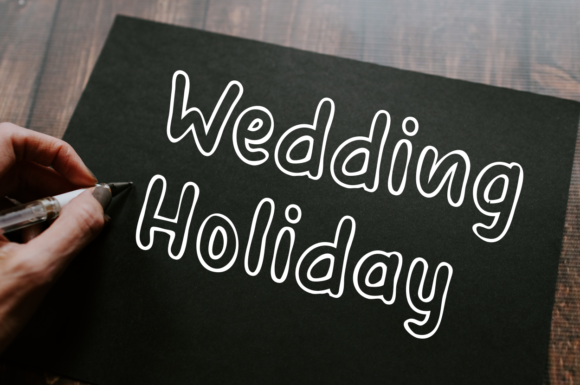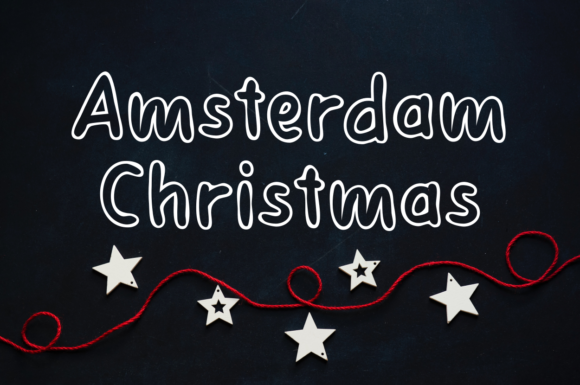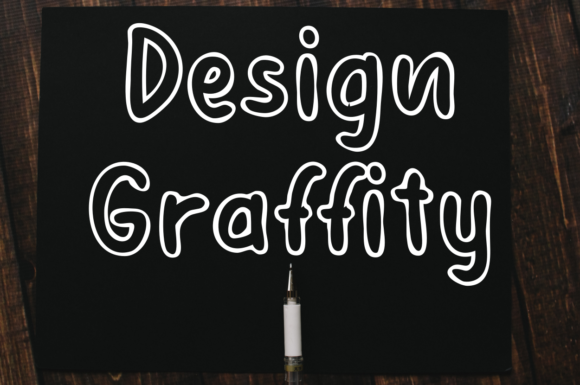
Introduction to Juicy Lemon Font
Have you ever been stuck on a creative project, searching for the perfect font to bring your idea to life? I know I have. Remember that one project where you spent hours browsing through font libraries, trying to find the perfect match? For designers, this is a common struggle. But what if I told you that there’s a font that can make your life easier? Enter the Juicy Lemon Font, a fresh and modern outlined display font that’s perfect for any creative project.
This beautiful font is not just a pretty face; it’s also a valuable design resource for anyone looking to elevate their branding materials, business cards, quotes, posters, and more. With its high-quality design and transparent background, the Juicy Lemon Font is perfect for designers who want to add a touch of elegance to their work.
Key Features of Juicy Lemon Font
- High-quality design font suitable for creative projects, offering a unique and vibrant style.
- Includes a comprehensive set of characters, including uppercase and lowercase letters, numbers, and punctuation marks.
- Perfect for designers and artists looking for a bold and eye-catching font to elevate their creative project.
Honest Review: Juicy Lemon Font
I recently had the chance to work with the Juicy Lemon Font, and I’m excited to share my honest review with you. This free download has been a game-changer for my creative projects, offering a fresh and vibrant design resource that’s perfect for anything from social media graphics to web design.
- ✨ High-quality design with a clean and modern aesthetic.
- ✨ Unique and creative characters that add a pop of personality to any project.
- ✨ Transparent background, making it easy to use with any color scheme.
- ⚠️ Limited character set, which can be a challenge for more complex designs.
- ⚠️ Not ideal for projects that require a high level of scalability.
Overall, I’m thoroughly impressed with the Juicy Lemon Font. Its high-quality design and unique characters make it a valuable addition to any designer’s toolkit. While it may not be perfect for every project, it’s definitely worth considering for your next creative endeavor.
Tips for Getting the Most Out of Juicy Lemon Font
Use the Juicy Lemon Font with a transparent background to create a modern and sleek design. This font is perfect for creative projects, such as logos, posters, and social media graphics.
The Juicy Lemon Font is a high-quality design resource that can be used in a variety of applications, including:
- Logos and branding
- Website design